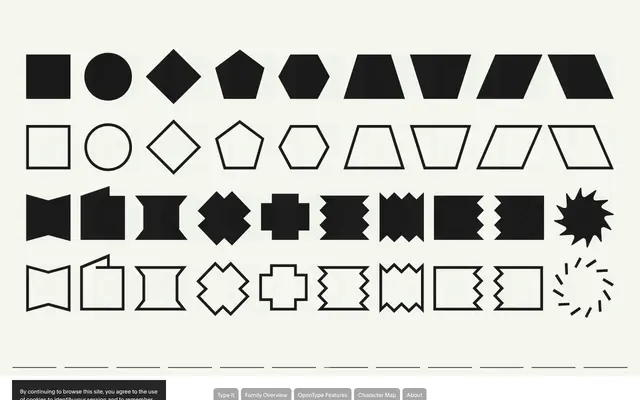
Ceremony
A 77-style labels and icons family by Studio Joost Grootens, built around 178 pictograms per style for atlases and information design.
A labels and icons family by Studio Joost Grootens that grew out of the studio's information design and atlas work. Across seventy-seven styles in Black, Outline, Sans and Sans Mono variants, each style carries an extended Latin character set and one hundred and seventy-eight pictograms, presented as positive and negative geometric shapes. Suited to wayfinding, data visualisation, atlases and any system that needs labelled symbols sitting in tight relation to type.
Optimo describes Ceremony as a labels and icons typeface family that comes out of Studio Joost Grootens' information design practice, with an extended Latin character set sat alongside a large pictogram library.